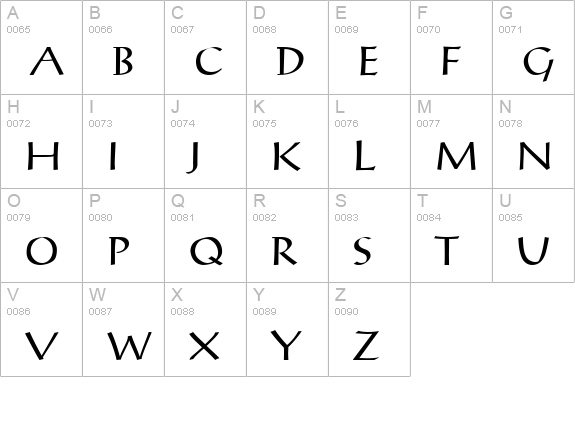
ProseAntique Font Details
ProseAntique font exudes a timeless elegance and refined sophistication, making it the perfect choice for projects that require a touch of classic charm. With its graceful serifs and delicate curves, ProseAntique captures the essence of vintage typography while still maintaining a modern appeal. This versatile font is ideal for a wide range of design applications, from invitations and stationery to branding and packaging. What's more, ProseAntique is available for free download at FontsMarket.com, allowing you to add this exquisite typeface to your collection without any cost. Whether you're a seasoned designer or a creative enthusiast, ProseAntique offers endless possibilities for bringing your ideas to life with its distinct character and timeless beauty. Elevate your projects with the elegance of ProseAntique font and let your creativity shine.